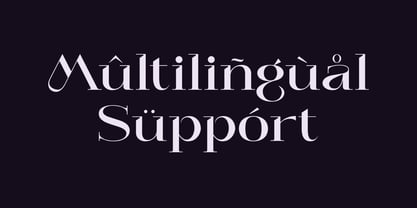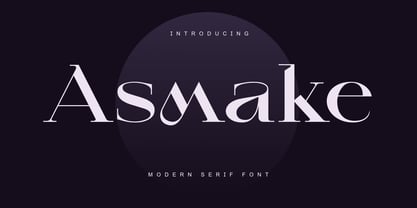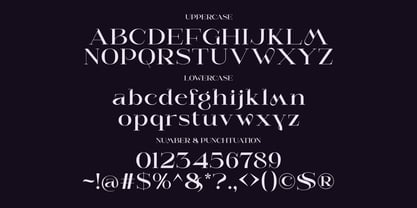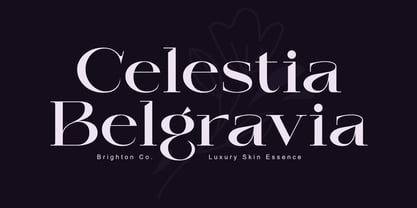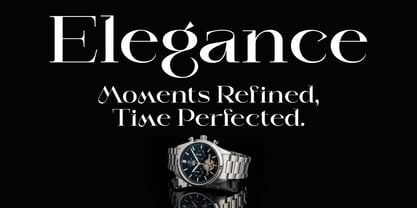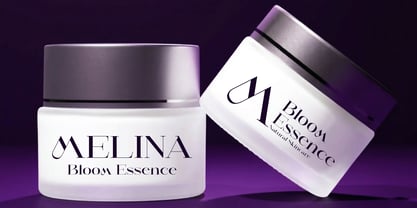
Asmake
by Sealoung
The Asmake Font Family was designed by Saiful Anwar and published by Sealoung. Asmake contains 1 styles. More about this family
Asmake is a modern serif font designed for logos, editorial layouts, and branding projects. With refined curves and a clean, timeless style, it creates a balanced look between classic and contemporary design. Its carefully crafted serif details make Asmake suitable for packaging, magazines, branding, and lifestyle visuals. Each character is designed to deliver clarity, consistency, and a strong visual presence. Asmake – Modern Serif Font Features Elegant and refined serif character set Suitable for editorial, branding, and creative projects Uppercase, lowercase, numerals, and punctuation included OpenType features for flexible design use Multilingual support including Afrikaans, Albanian, Basque, Dutch, English, French, German, Indonesian, Italian, Portuguese, Spanish, Swahili, and more Bring a clean and timeless style to your designs with Asmake — a modern serif font made for versatile visual projects. ✨
Designers: Saiful Anwar
Foundry: Sealoung